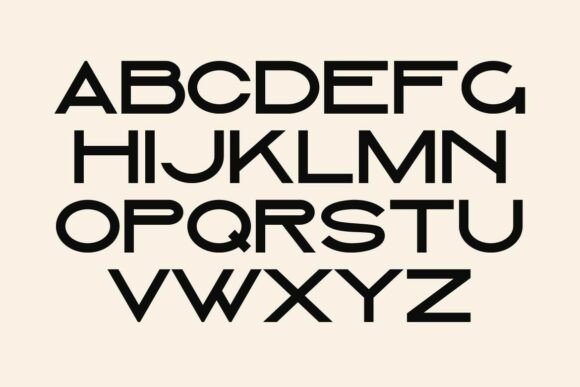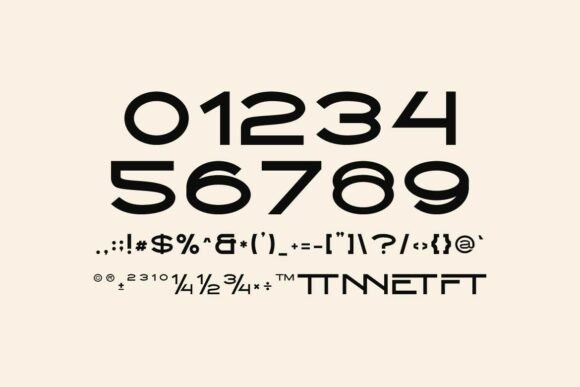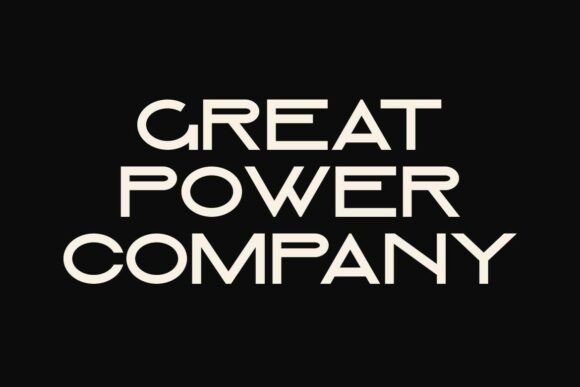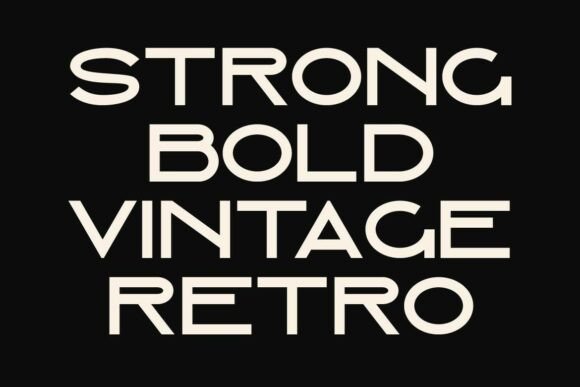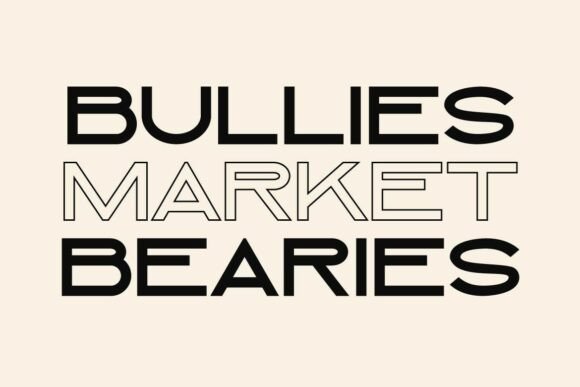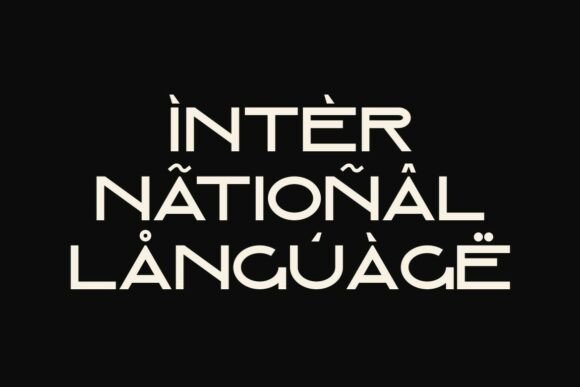
Introducing Endrace Font: A Bold and Contemporary Extended Sans Serif
In the world of typography, fonts play a crucial role in conveying messages, expressing emotions, and creating visual identities. For designers and crafters, finding the perfect font that embodies their creative vision can be a daunting task. However, if you’re looking for a bold and contemporary extended sans serif font that commands attention, look no further than Endrace Font.
Design and Characteristics
Endrace is a thoughtfully designed font that boasts wide proportions and a clean structure, making it perfect for a variety of applications. Its strong geometry, smooth curves, and modern styling give it a unique and captivating presence. The font’s extended sans serif design ensures that it remains highly legible, even at larger sizes, making it ideal for logos, headlines, sports graphics, posters, technology branding, and advertising campaigns.
- Bold and Contemporary Design: Endrace Font features a bold and contemporary design that is sure to grab attention. Its wide proportions and clean structure give it a modern and sleek appearance.
- Strong Geometry and Smooth Curves: The font’s strong geometry and smooth curves create a perfect balance of structure and elegance, making it suitable for a wide range of applications.
- High Legibility: Endrace Font is designed to be highly legible, even at larger sizes, ensuring that your message is conveyed clearly and effectively.
- Versatility: The font’s versatility makes it perfect for various applications, including logos, headlines, sports graphics, posters, technology branding, and advertising campaigns.
Applications and Use Cases
Endrace Font is an incredibly versatile font that can be used in a variety of applications. Here are some of the most popular use cases:
- Logos and Branding: The font’s bold and contemporary design makes it perfect for logos and branding, especially for companies that want to convey a sense of modernity and sophistication.
- Headlines and Titles: Endrace Font is ideal for headlines and titles, where its strong geometry and smooth curves can be used to create attention-grabbing text.
- Sports Graphics: The font’s bold and dynamic design makes it perfect for sports graphics, such as jerseys, posters, and advertisements.
- Posters and Flyers: Endrace Font can be used to create eye-catching posters and flyers that require a bold and contemporary design.
- Technology Branding: The font’s modern and sleek design makes it suitable for technology branding, including logos, websites, and marketing materials.
- Advertising Campaigns: Endrace Font can be used to create powerful and attention-grabbing advertising campaigns that require a bold and contemporary design.
Why Choose Endrace Font?
With so many fonts available, why choose Endrace Font? Here are a few reasons:
- Unique Design: Endrace Font features a unique and captivating design that sets it apart from other fonts.
- High Quality: The font is designed to be of high quality, ensuring that it remains legible and visually appealing even at larger sizes.
- Versatility: Endrace Font is incredibly versatile, making it suitable for a wide range of applications.
In conclusion, Endrace Font is a bold and contemporary extended sans serif font that is perfect for designers and crafters looking for a font that commands attention. Its strong geometry, smooth curves, and modern styling make it suitable for a wide range of applications, from logos and branding to headlines and titles. With its high legibility, versatility, and unique design, Endrace Font is an excellent choice for anyone looking to create visually stunning designs.